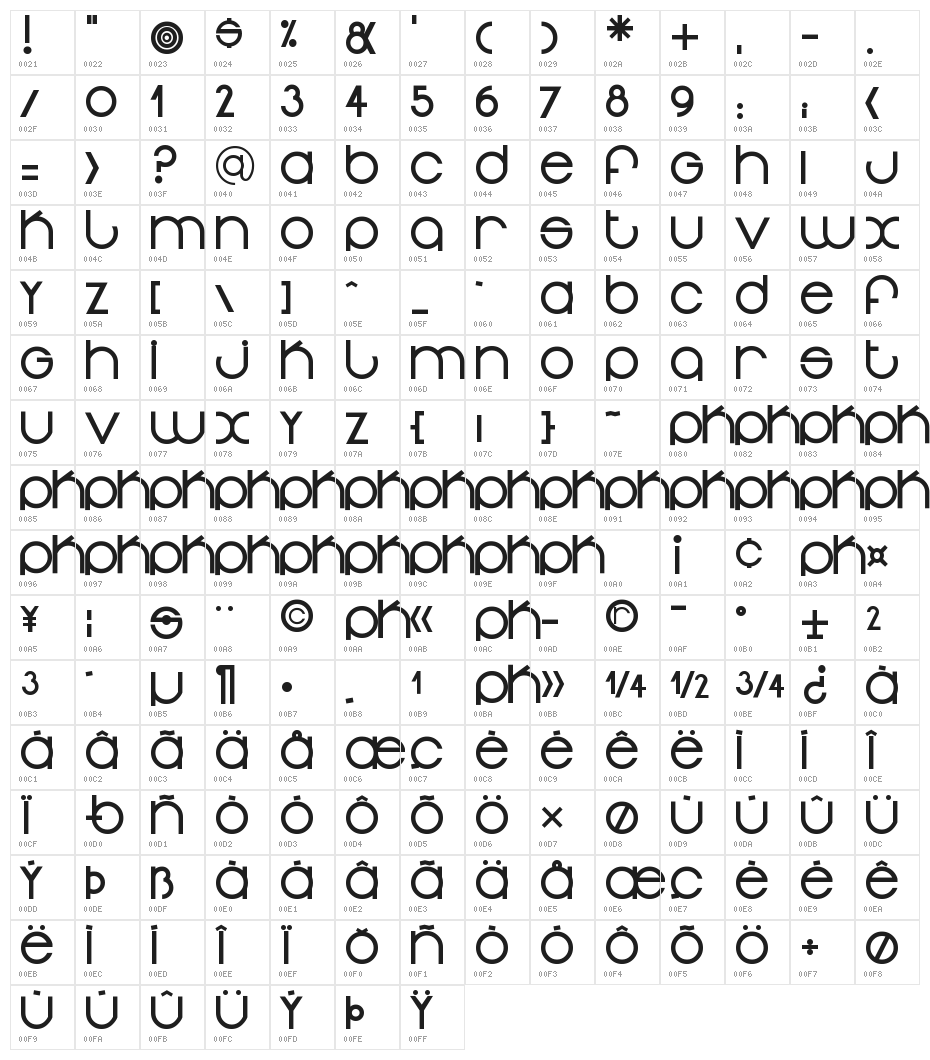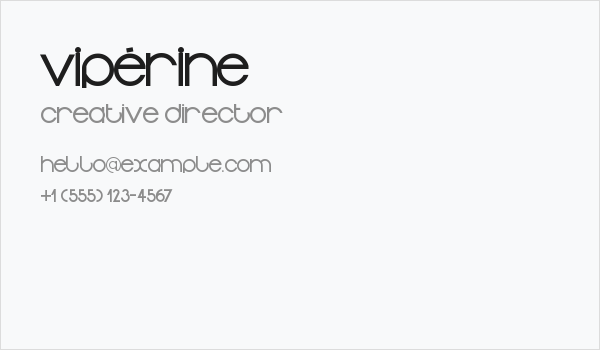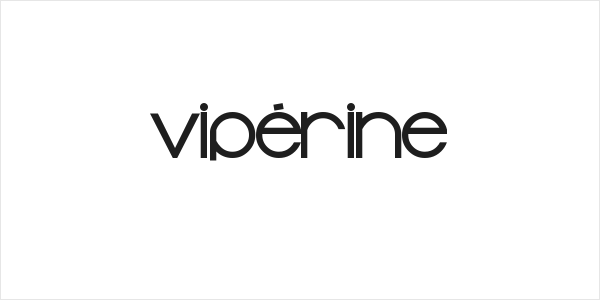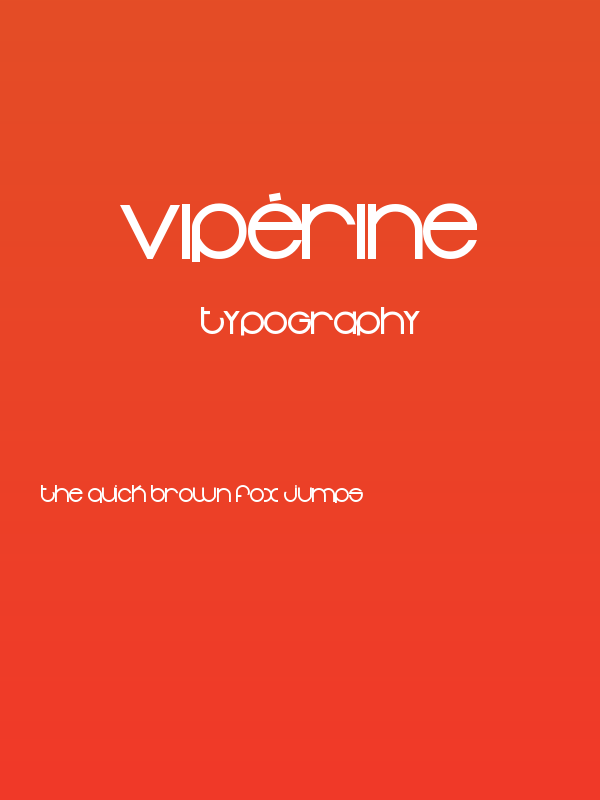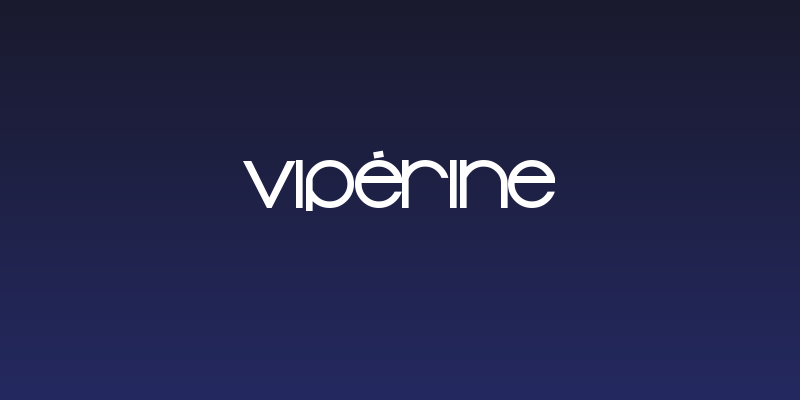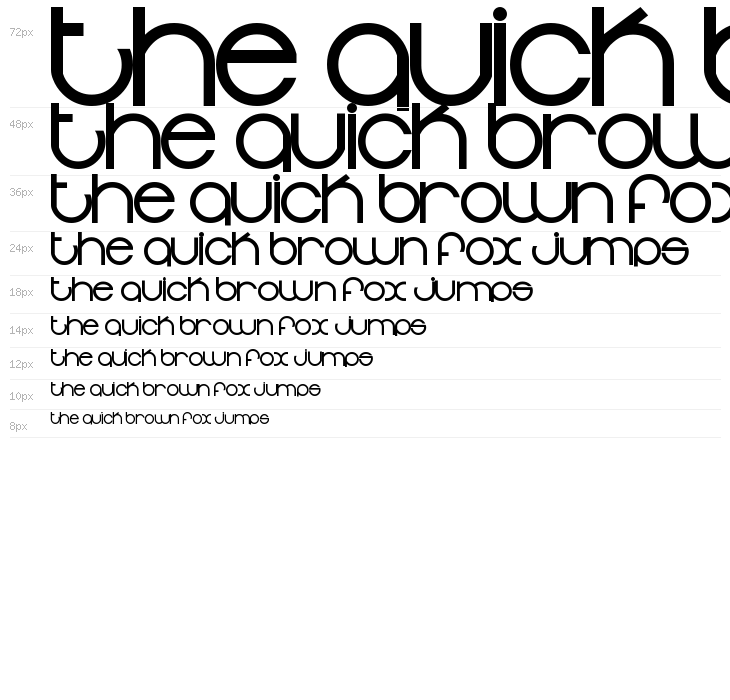
vipérine Font
vipérine Description
This font features a modern and geometric design, characterized by its clean lines and circular elements. The letters are constructed with a consistent stroke width, giving it a uniform appearance. The rounded edges and circular shapes within the characters create a futuristic and sleek look. The numerals and special characters follow the same design principles, ensuring a cohesive style throughout. This font is highly legible and versatile, making it suitable for various design applications.
Use CaseHeadlines, Logos, Digital Interfaces
Proposed ProjectsIdeal for tech branding, modern advertising, digital interfaces, and futuristic design projects.